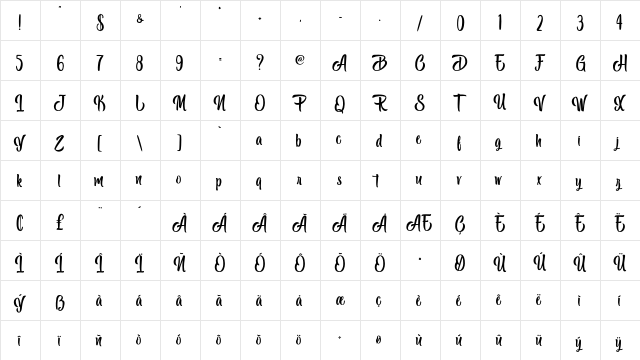
Black Melody - Personal Use Regular
| Foundry | Typhoon Type - Suthi Srisopha |
| Designer | Typhoon Type - Suthi Srisophaʠ |
Design Context for Black Melody - Personal Use Typeface
Black Melody - Personal Use is a composed and adaptable typeface that performs quietly and consistently across a wide range of design contexts.